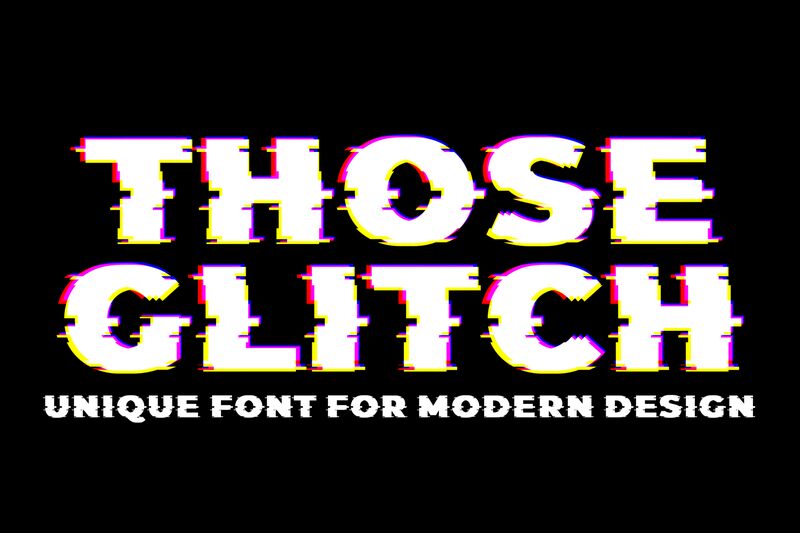
Those Glitch Regular
Those Glitch, a creation by 177Studio, stands out with its unapologetically bold and expanded presence that commands attention. The display font breathes life into the concept of digital distortion, making each character a statement piece that seems to vibrate with energy. It's as if the letters have been pulled from a screen mid-glitch, frozen in time yet dynamic.
This font's aesthetic is perfect for projects that aim to capture a sense of disruption or cutting-edge technology. Its distorted style conveys movement and immediacy, making it an ideal choice for impactful headlines, poster designs, and any visual media seeking to push boundaries or evoke the zeitgeist of the digital age.